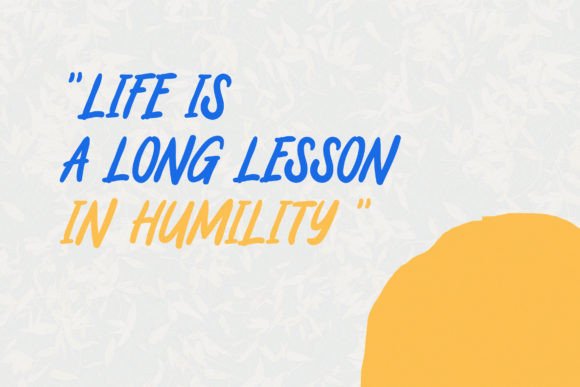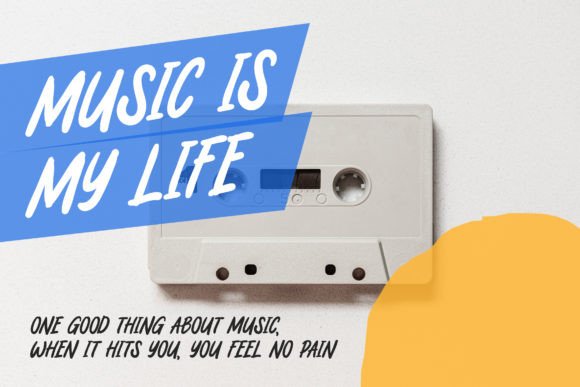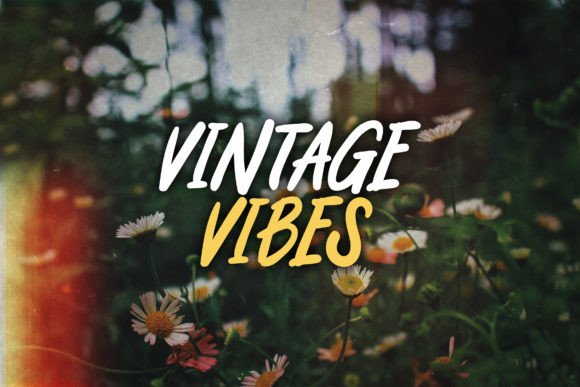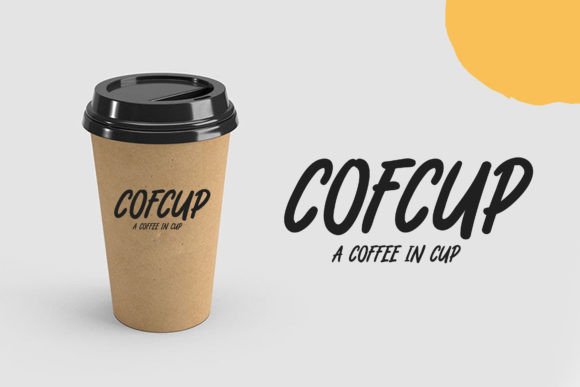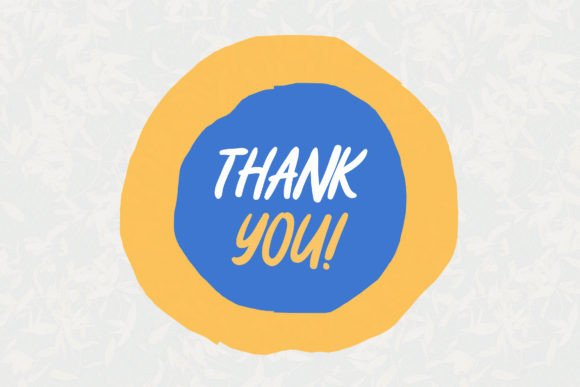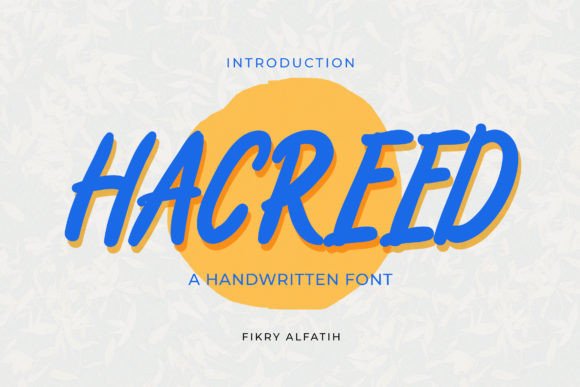
Hacreed Font: A Vintage-Inspired Typeface for Modern Design
In the world of typography, fonts play a crucial role in conveying the tone and personality of a brand. For designers and crafters looking to add a touch of nostalgia to their work, the Hacreed Font is an excellent choice. Inspired by the hand-painted signs typically seen in stores, Hacreed is a unique typeface that blends vintage charm with modern appeal.
The Inspiration Behind Hacreed
Hacreed Font draws its inspiration from the classic hand-painted signs that have been a staple of storefronts for decades. These signs, often created with bold brushstrokes and playful lettering, have a distinct character that evokes a sense of nostalgia and warmth. The Hacreed Font captures the essence of these signs, translating their charm into a digital format that’s perfect for a wide range of design applications.
Characteristics of Hacreed Font
The Hacreed Font boasts a distinctive set of characteristics that make it ideal for vintage and contemporary marketing, branding, merchandising, and packaging design. Some of its key features include:
- Hand-painted feel: Hacreed’s letterforms have a hand-painted quality, with subtle imperfections and variations that give the font a unique, organic look.
- Bold and playful: The font features bold, expressive lettering that’s perfect for grabbing attention and making a statement.
- Vintage charm: Hacreed’s inspiration from classic hand-painted signs gives it a nostalgic feel that’s perfect for designs that require a touch of retro flair.
- Versatile: Despite its distinctive character, Hacreed is a versatile font that can be used in a wide range of design contexts, from branding and advertising to packaging and merchandise.
Uses for Hacreed Font
The Hacreed Font is an excellent choice for designers and crafters working on a variety of projects, including:
- Branding and logo design: Hacreed’s bold, attention-grabbing lettering makes it perfect for logos and branding elements that need to stand out.
- Marketing and advertising: The font’s vintage charm and playful character make it well-suited for marketing and advertising materials, such as posters, flyers, and social media graphics.
- Packaging design: Hacreed’s unique character makes it an excellent choice for packaging design, particularly for products that require a touch of nostalgia or retro flair.
- Merchandising: The font’s bold, eye-catching lettering makes it perfect for merchandise such as t-shirts, stickers, and other promotional items.
Tips for Using Hacreed Font
To get the most out of the Hacreed Font, consider the following tips:
- Experiment with colors: Hacreed’s bold lettering looks great in a variety of colors, so don’t be afraid to experiment and find the perfect hue for your design.
- Mix and match: Combine Hacreed with other fonts to create a unique look that blends vintage charm with modern appeal.
- Pay attention to spacing: Hacreed’s bold lettering can be quite dense, so make sure to leave enough space between letters and words to create a clean, legible design.
The Hacreed Font is a unique and versatile typeface that’s perfect for designers and crafters looking to add a touch of vintage charm to their work. With its bold, playful lettering and hand-painted feel, Hacreed is an excellent choice for a wide range of design applications, from branding and marketing to packaging and merchandising. Whether you’re looking to create a nostalgic look or simply want to add some personality to your design, Hacreed is an excellent choice.